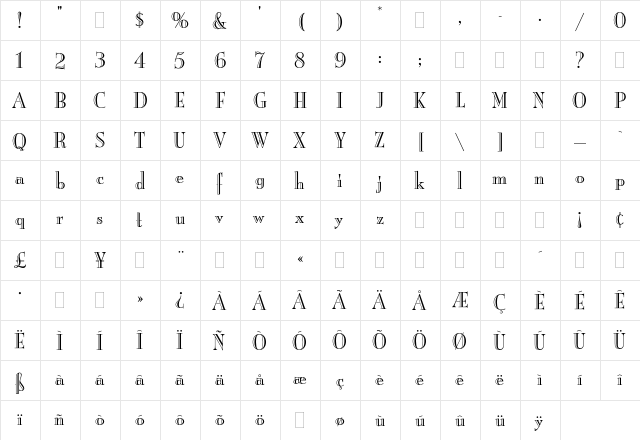
Burlington Plain
Design Context for Burlington Typeface
Burlington offers clean, dependable letterforms without strong stylistic allegiance, making it a practical choice for designers who need flexibility.